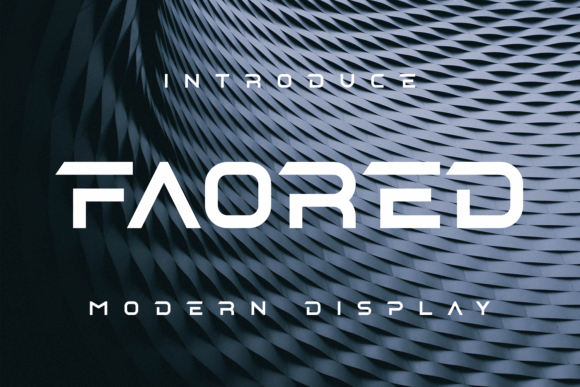
Discover the Power of Unique Typography
Have you ever stared at a blank page, trying to find the perfect words to bring your creative vision to life? That’s exactly where I was a few months ago, searching for the perfect font to complement my latest design project. I had tried countless combinations, but nothing seemed quite right – until I stumbled upon the Faored Font. Its bold, eye-catching design instantly captured my attention and transformed my entire creative process.
With its sleek, modern aesthetic, the Faored Font is a versatile tool that can elevate any design, from social media graphics to website headers. Whether you’re a seasoned designer or just starting out, this font is an incredible asset to have in your library. Its unique blend of style and functionality makes it a valuable addition to any creative project.
Faored Font Key Features
- Unique Characteristics: Faored Font features a distinctive, modern design with a mix of geometric and organic elements, making it suitable for a variety of applications, including digital interfaces, signage, and print materials.
- Font Weight and Style: Faored Font is available in 8 weights, ranging from Thin to Black, as well as 3 styles, including Regular, Italic, and Bold Italic, providing flexibility for designers and typographers.
Review of Faored Font
As a designer, I was excited to dive into the Faored Font and see what it had to offer. Here’s my honest review.
- The Faored Font has a modern and sleek design that makes it perfect for digital applications.
- The font is highly legible, even at small sizes, which is a must for any font.
- The font family includes a wide range of weights and styles, giving designers plenty of options for their projects.
- The font is highly versatile and can be used for a variety of projects, from logos to body text.
- The Faored Font lacks a strong personality, making it blend in with other modern sans-serif fonts.
- The font may not be the best choice for projects that require a lot of emphasis or drama.
- The font’s simplicity can also make it feel a bit boring at times.
The Faored Font is a solid choice for designers who need a modern and legible font for their projects. While it may not stand out from the crowd, it’s a reliable option that gets the job done. I would recommend it for digital applications, but may not be the best choice for projects that require a lot of personality or drama.
Tips for Getting the Most Out of “Faored Font”
Use “Faored Font” to add a touch of elegance and sophistication to your designs.
Pair it with bold colors and clean lines to create a modern and sleek look.
Experiment with different font sizes and styles to add visual interest to your designs.
Common Use Cases for “Faored Font”
Use “Faored Font” for:
Business cards and marketing materials
Graphic design projects and branding materials
Alternatives to Faored Font
Playfair Display is a high-end, elegant serif font ideal for luxury brands and high-end publications. It’s perfect for creating a sense of sophistication and refinement. Unlike Faored Font, Playfair Display is more ornate and has a more classical feel.
Lato is a modern sans-serif font suitable for a wide range of applications, from corporate brands to digital interfaces. It’s clean, simple, and highly legible, making it a great alternative to Faored Font for projects that require a more minimalist approach.
Great Vibes is a beautiful, elegant script font perfect for adding a touch of personality to your designs. It’s ideal for creative projects, such as invitations, posters, and social media graphics. Unlike Faored Font, Great Vibes has a more organic, handwritten feel.